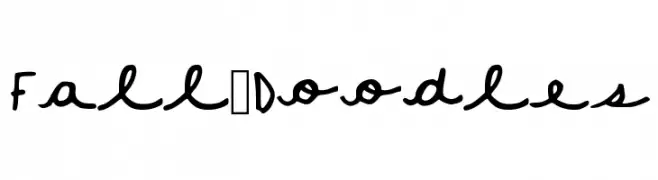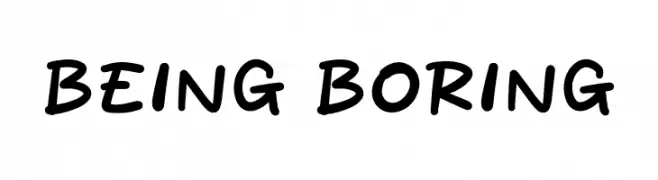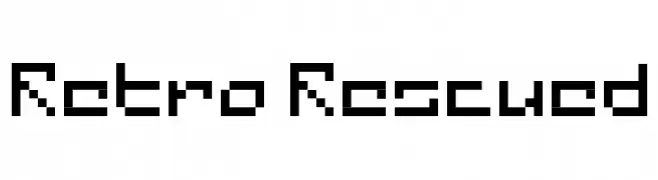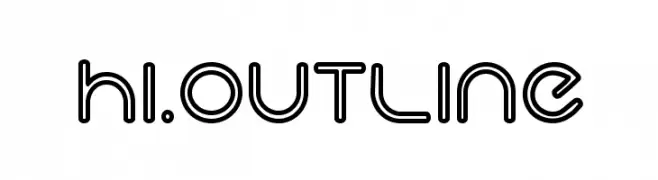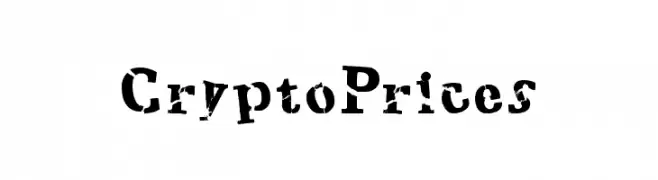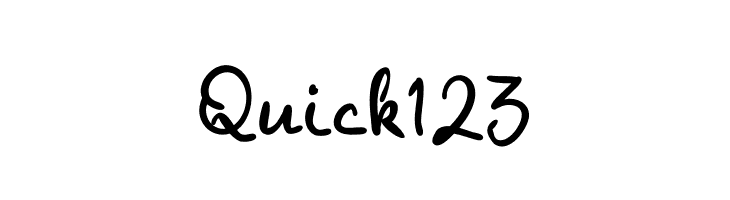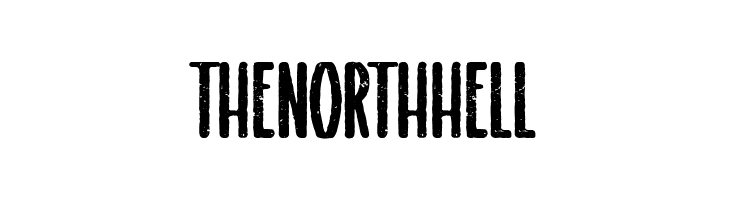
A modern, geometric font with a futuristic and minimalist design.
A playful, handwritten font with smooth, rounded edges and a casual style.
A flowing, cursive script with elegant, sweeping strokes and artistic flair.
A futuristic, geometric font with bold, angular lines and a digital aesthetic.
A modern, outline-style font with rounded edges and a tubular appearance.
A clean, modern sans-serif typeface with uniform stroke width and rounded edges.
A lively, cursive font with a natural handwritten style.
A bold, distressed stencil font with an industrial, rugged appearance.